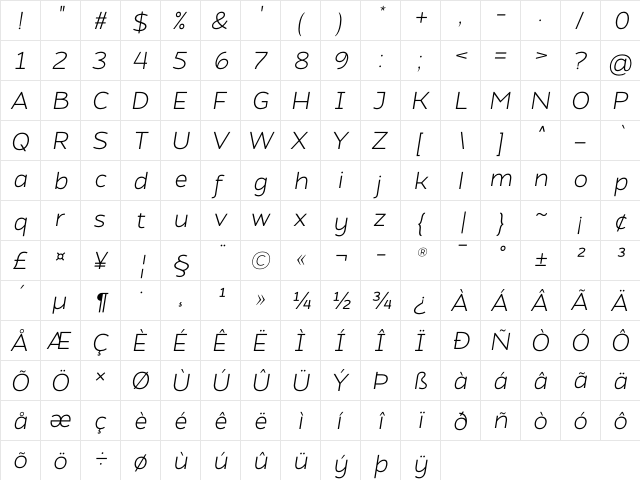
Atozimple Light Italic Font Preview
Design Context for Atozimple Light Typeface
Atozimple Light offers clean, dependable letterforms without strong stylistic allegiance, making it a practical choice for designers who need flexibility. Its italic angle brings a sense of urgency and motion to the letterforms. Its slender proportions lend an understated elegance to any composition.
Pro Tip: Try Atozimple Light for annotation and caption copy alongside an upright companion — the contrast in angle creates a dynamic but ordered typographic system.